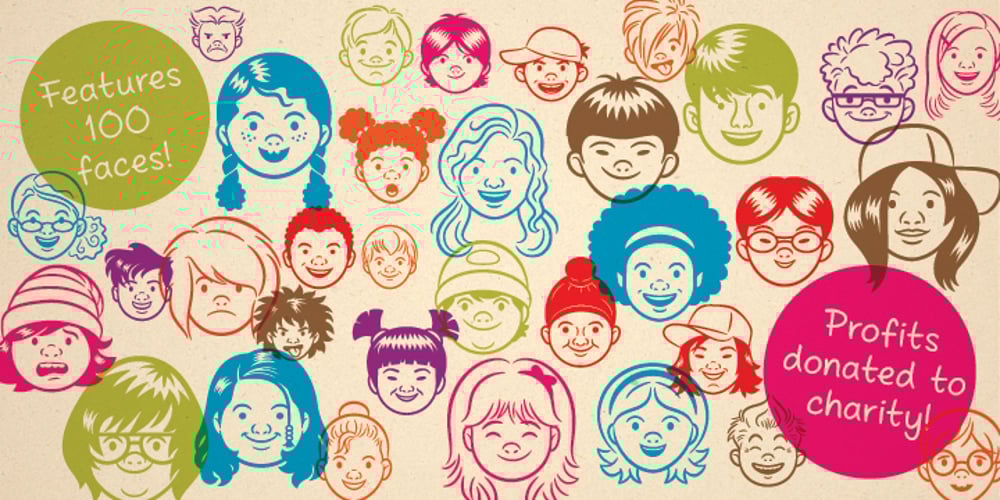
Peepz AF Font Family was designed by Andrew Foster and published by Andrew Foster. Peepz AF contains 1 styles and family package options. Peepz AF features 100 different faces and has been designed to raise much needed money for Keech Hospice Care, a UK charity that runs two hospice services – one for adults and one for children. Their aim is to help patients enjoy the highest quality of life, while providing vital support for their family and friends throughout their loved one’s illness and in their bereavement. All of the charity’s services are offered free of charge, every single day of the year. This is all made possible because of the generous support of people like you. Profits from the sale of this font will be donated to Keech Hospice Care.